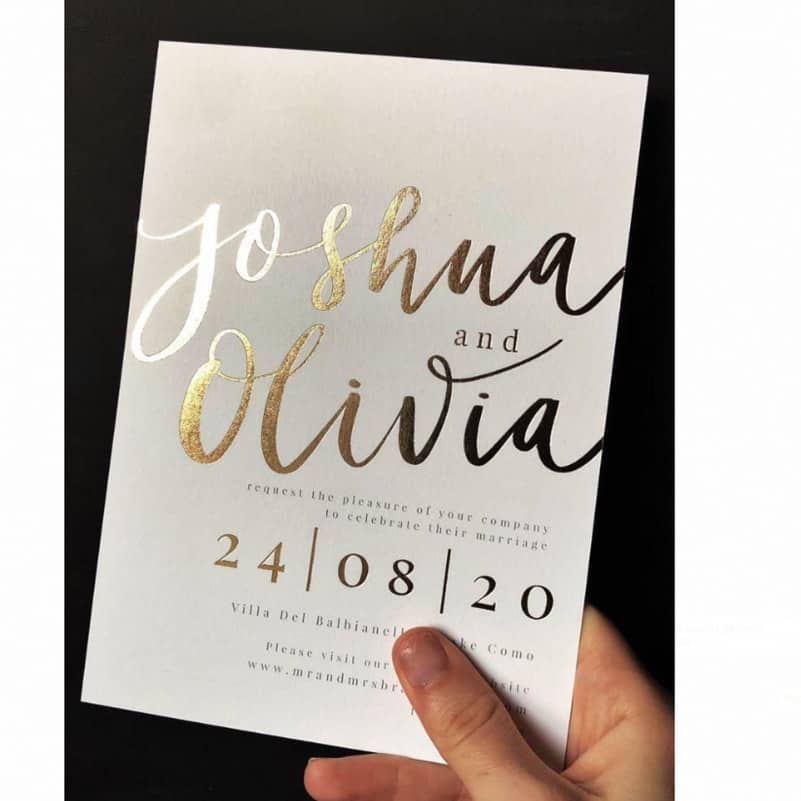
Joshua Olivia
Only similar fonts can be found: Lupitta Script Font
It is very difficult to recognize the exact font
This is not a font.
It is actually written by hand.
The characters "i", and "a". If it was a font it would be the same.